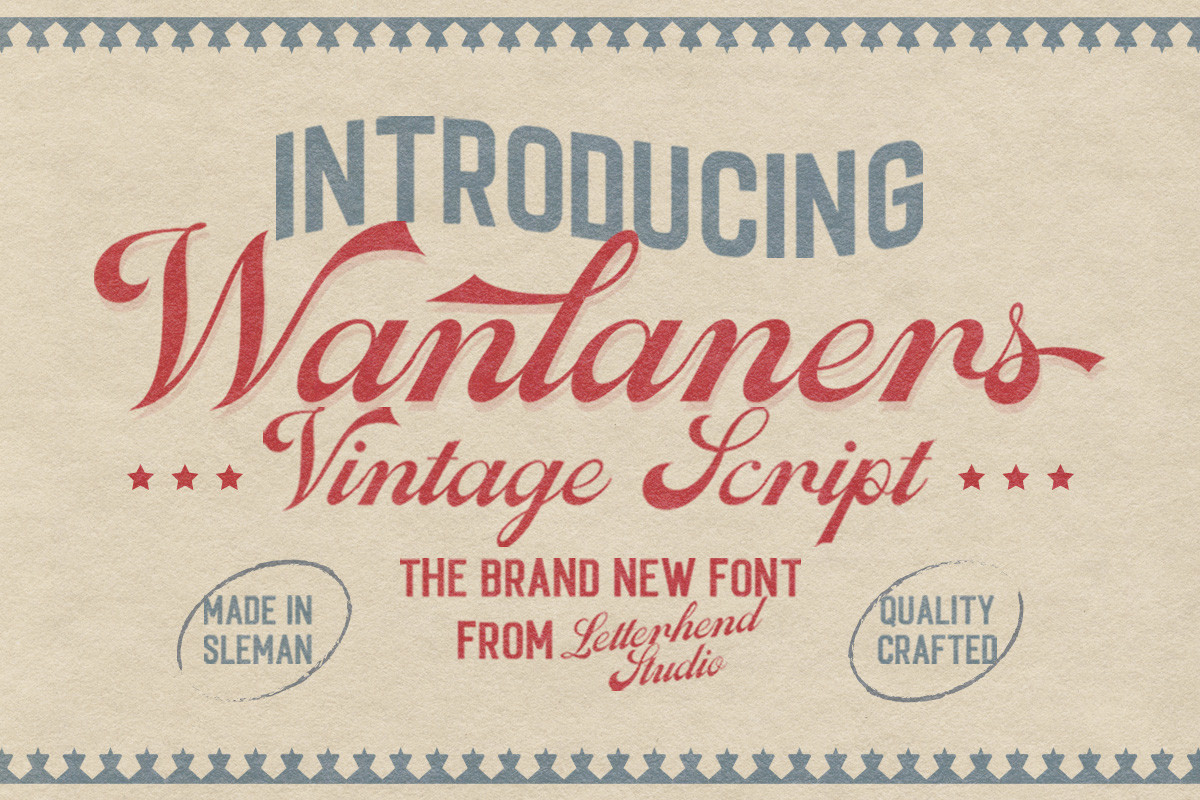
Wanlaners - Vintage Script Font
Wanlaners - Vintage Script Font is perfect for nostalgic wedding invitation designs, classic calligraphy service branding, vintage boutique signage, retro restaurant menu layouts, antique shop advertising, heritage brand identities, old-fashioned greeting card collections, timeless logo designs, classic stationery projects, and elegant vintage-themed social media graphics. This timeless typeface brings authentic period charm to vintage fashion brands, classic luxury goods, heritage preservation societies, retro-inspired businesses, and nostalgic lifestyle companies.
Wanlaners - Vintage Script Font is exciting because it masterfully recreates the sophisticated elegance and handcrafted beauty of classic penmanship from bygone eras through its authentically flowing script letterforms. The font features graceful characters with vintage proportions and period-appropriate flourishes that evoke the artistry of Victorian calligraphers, the elegance of vintage correspondence, and the timeless sophistication of handwritten heritage documents. Its distinctive construction demonstrates vintage script mastery with carefully preserved historical details that create an immediate sense of nostalgic authenticity and classic refinement. The font's vintage presence and script authenticity make it perfect for brands seeking to communicate timeless elegance, historical heritage, and the enduring beauty of classic craftsmanship in their visual communications.
Wanlaners - Vintage Script Font family includes various period-inspired styles: Light Script, Regular Script, Bold Script, Ornate Script, Classic Script, Elegant Script, Flourished Script, Simple Script, Condensed Script, Extended Script, Heritage Script, and Timeless variants. Each family member maintains the core vintage script DNA while offering different levels of ornamentation for diverse nostalgic design applications. The comprehensive font collection ensures consistent vintage branding across heritage campaigns, classic businesses, and timeless communication materials.
Whether you're creating vintage brand identities, designing heritage marketing materials, developing classic website headers, or crafting nostalgic promotional campaigns, Wanlaners - Vintage Script Font delivers outstanding vintage appeal and script authenticity. The font's distinctive elegant personality excels in heritage logos, vintage packaging design, classic applications, and timeless projects where historical script elegance and nostalgic sophistication are essential.